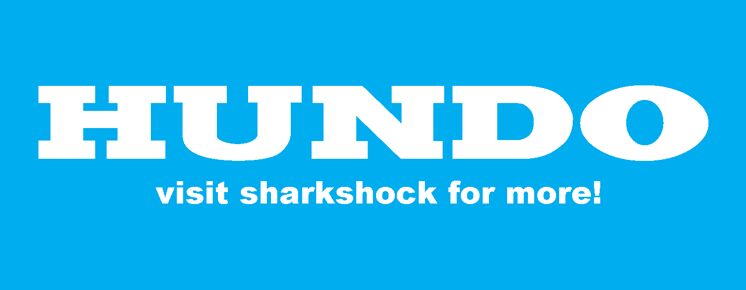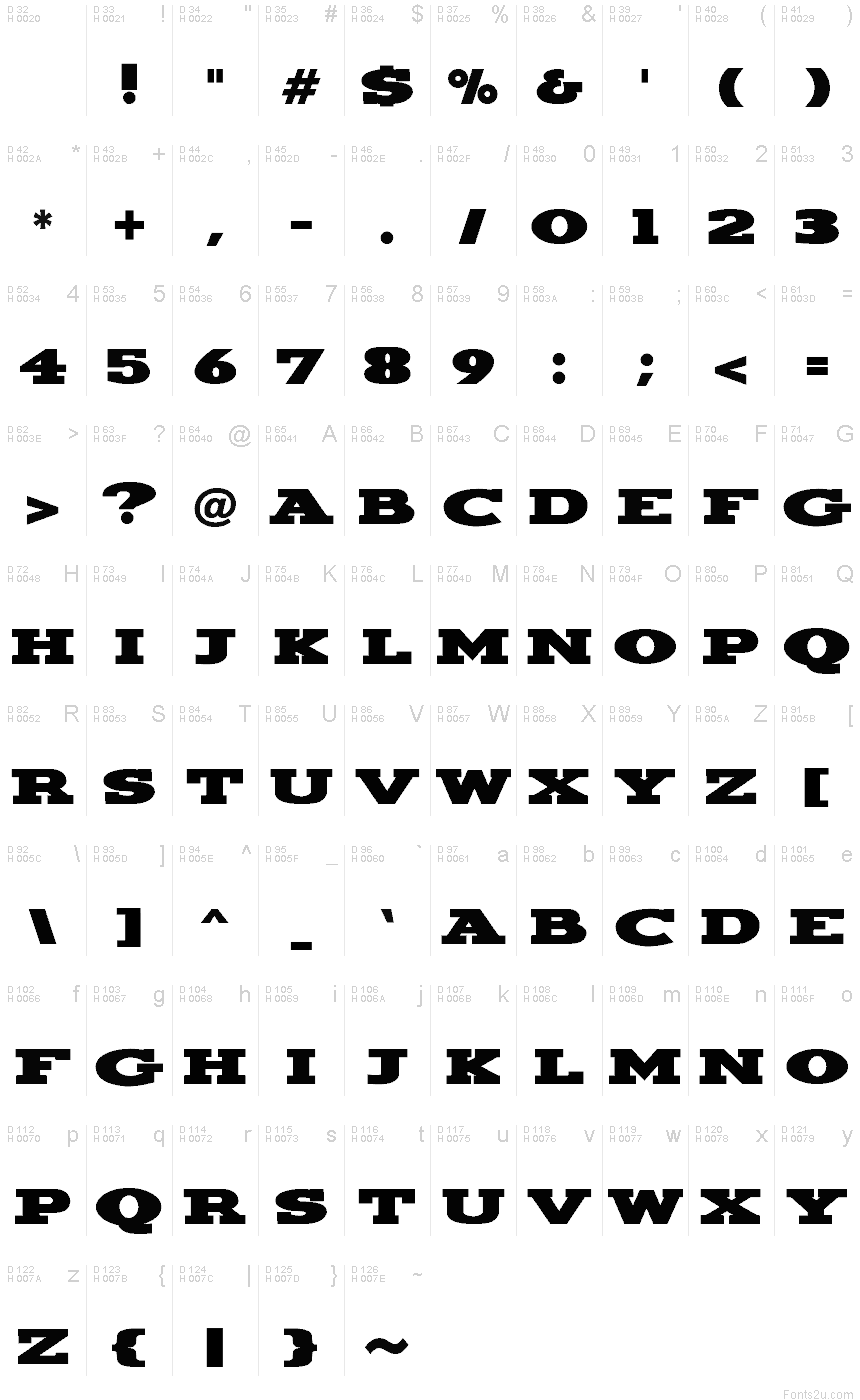
Hey everyone. Like life in the fast lane? Got the need for speed? This font might be for you. It's an old rework of one of my earlier projects with cleaner glyphs, spacing, and kerning.